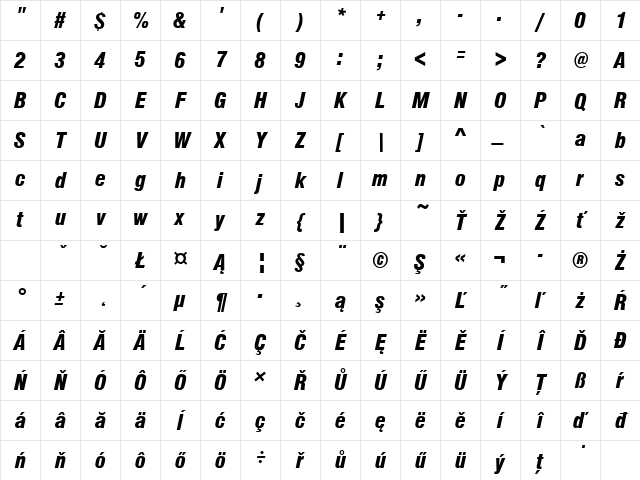
NimbusSanDEEBlaCon Italic
Design Context for NimbusSanDEEBlaCon
NimbusSanDEEBlaCon is a composed and adaptable typeface that performs quietly and consistently across a wide range of design contexts. The slanted form adds forward momentum and visual energy.
Pro Tip: Use NimbusSanDEEBlaCon for emphasis, pull quotes, and subheadings where its slanted energy can add rhythm to the layout.